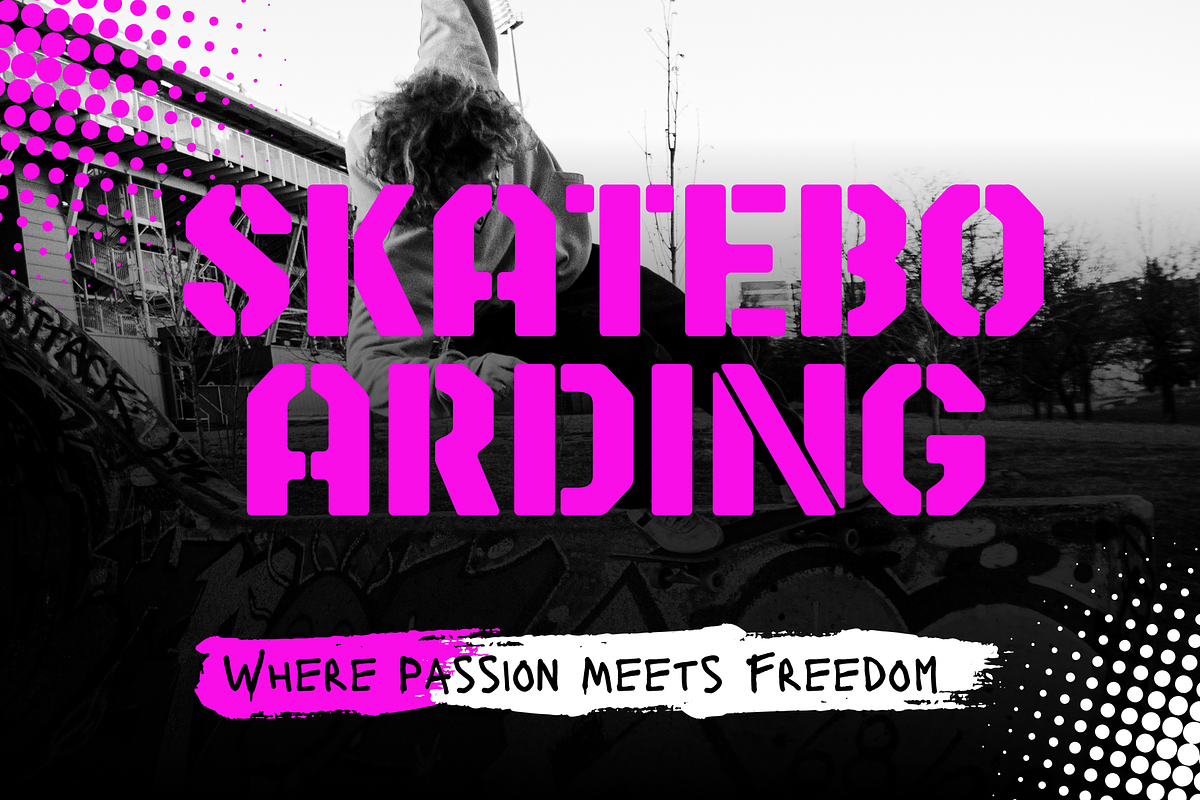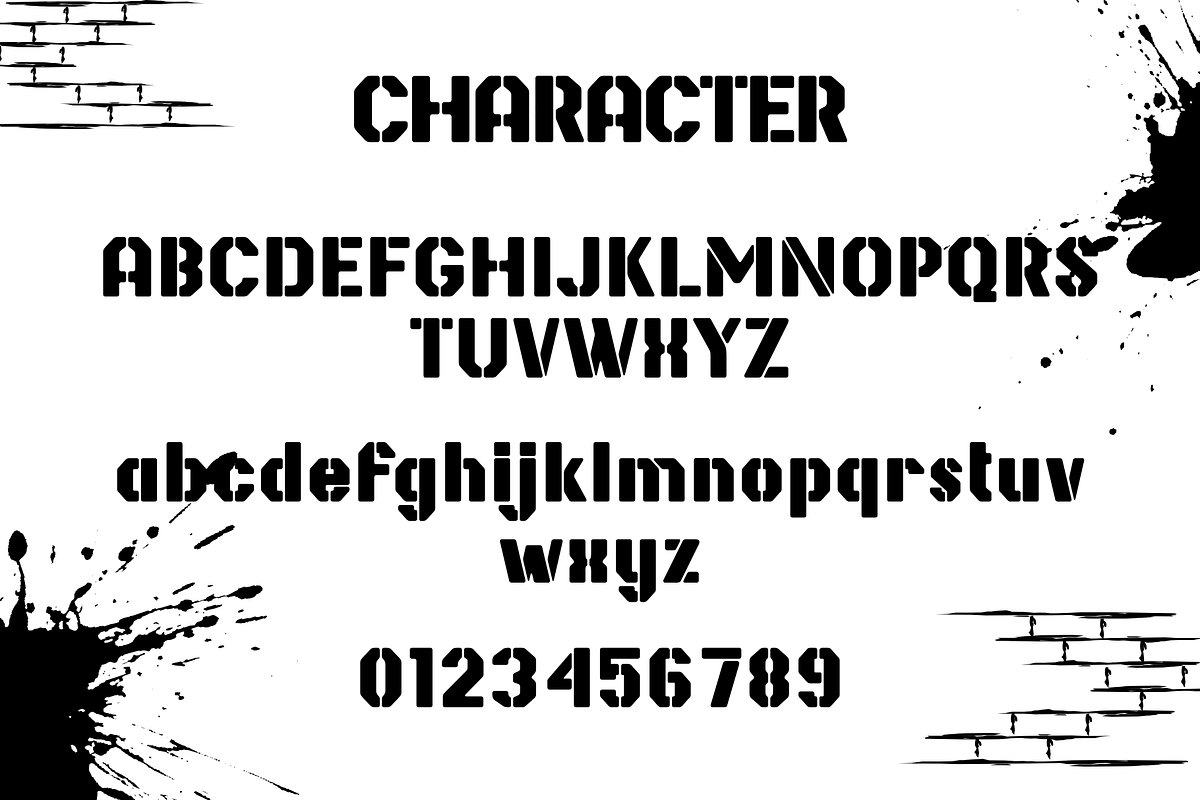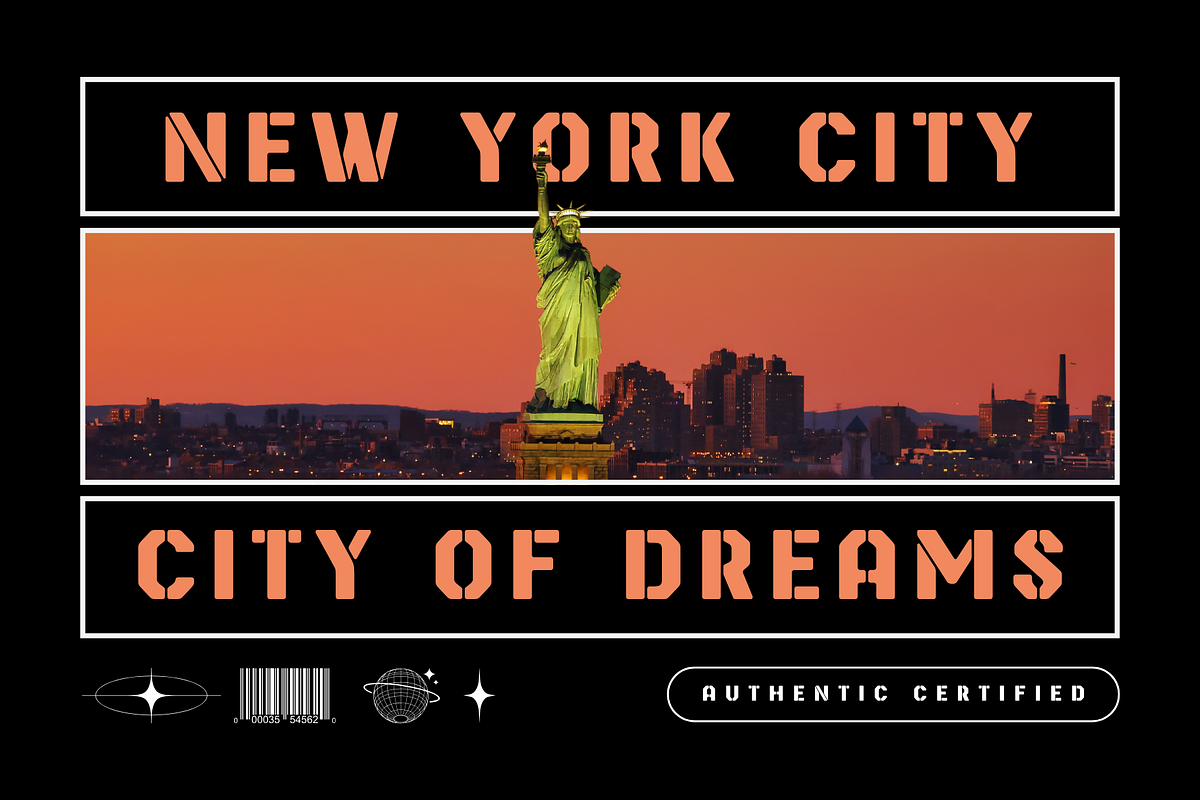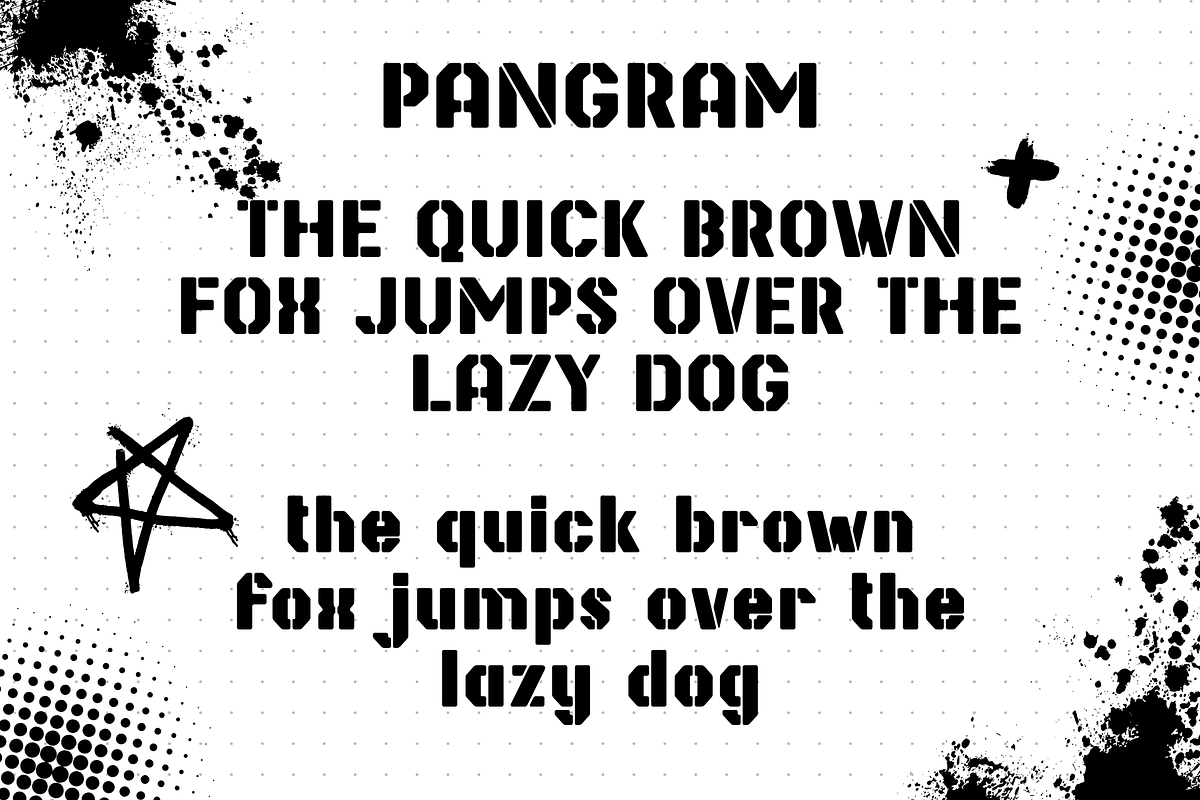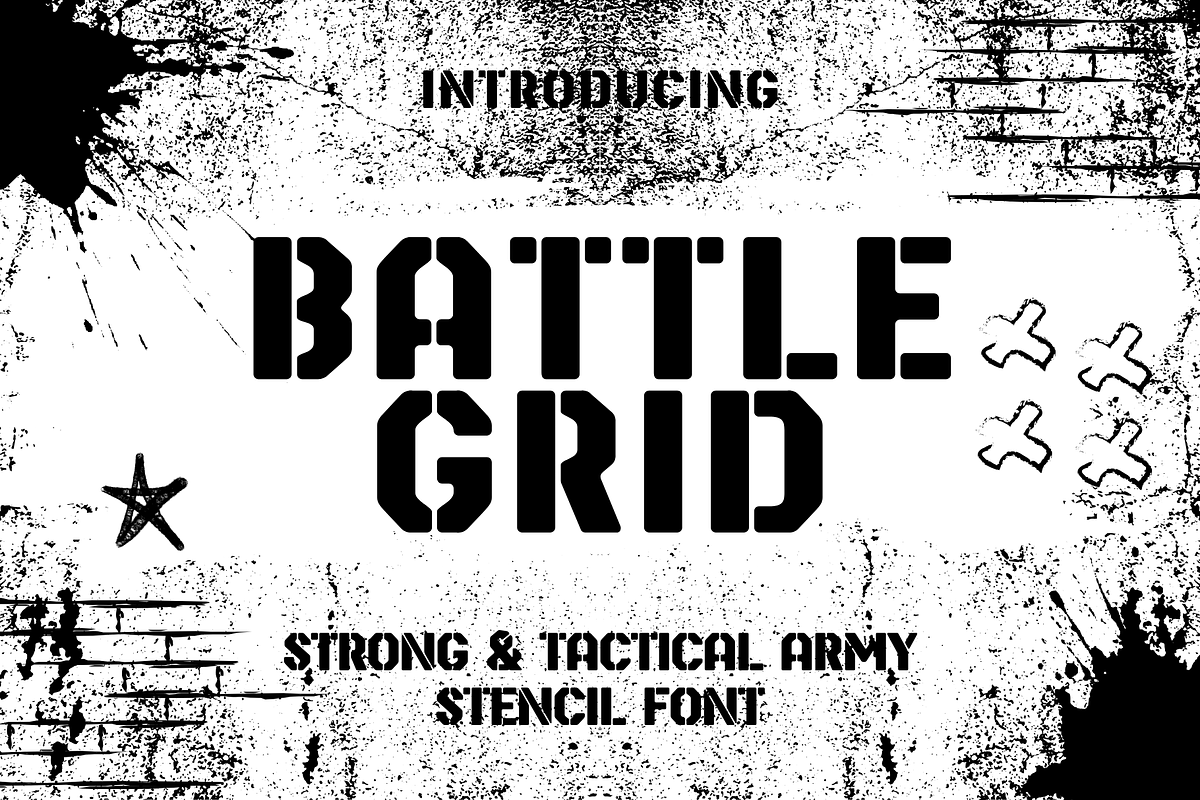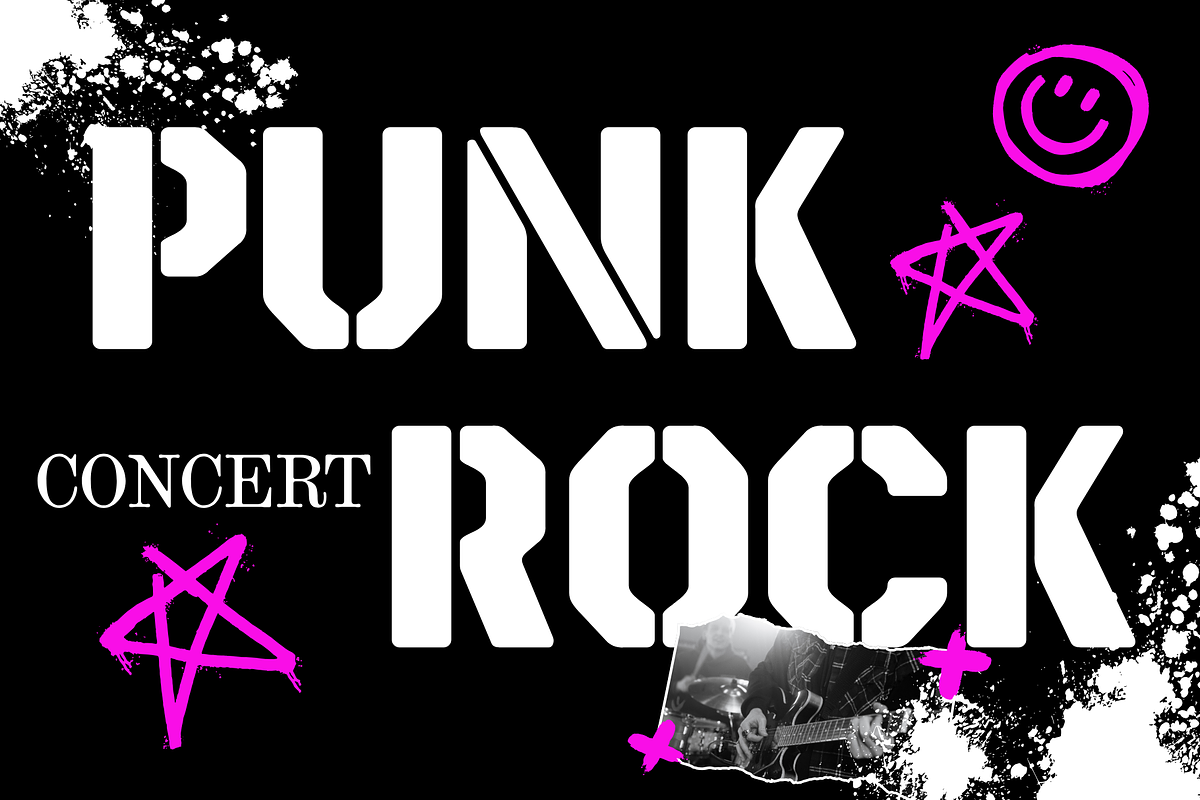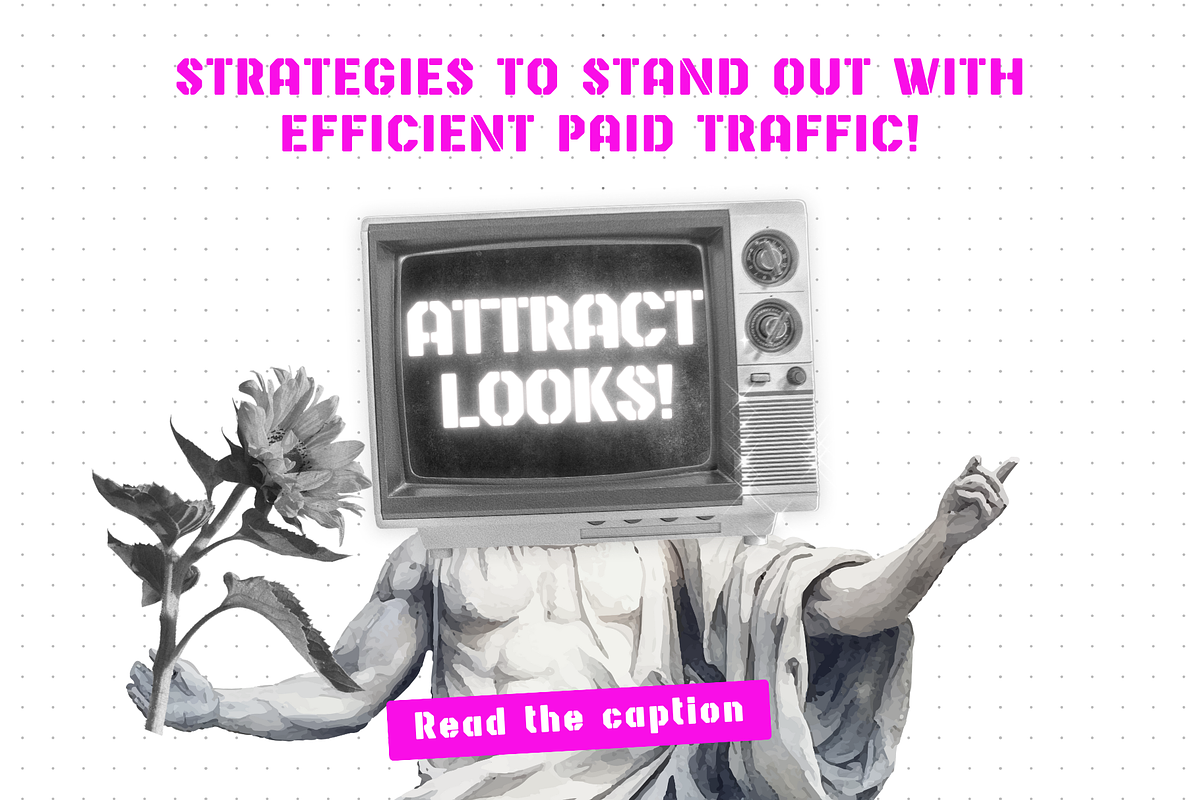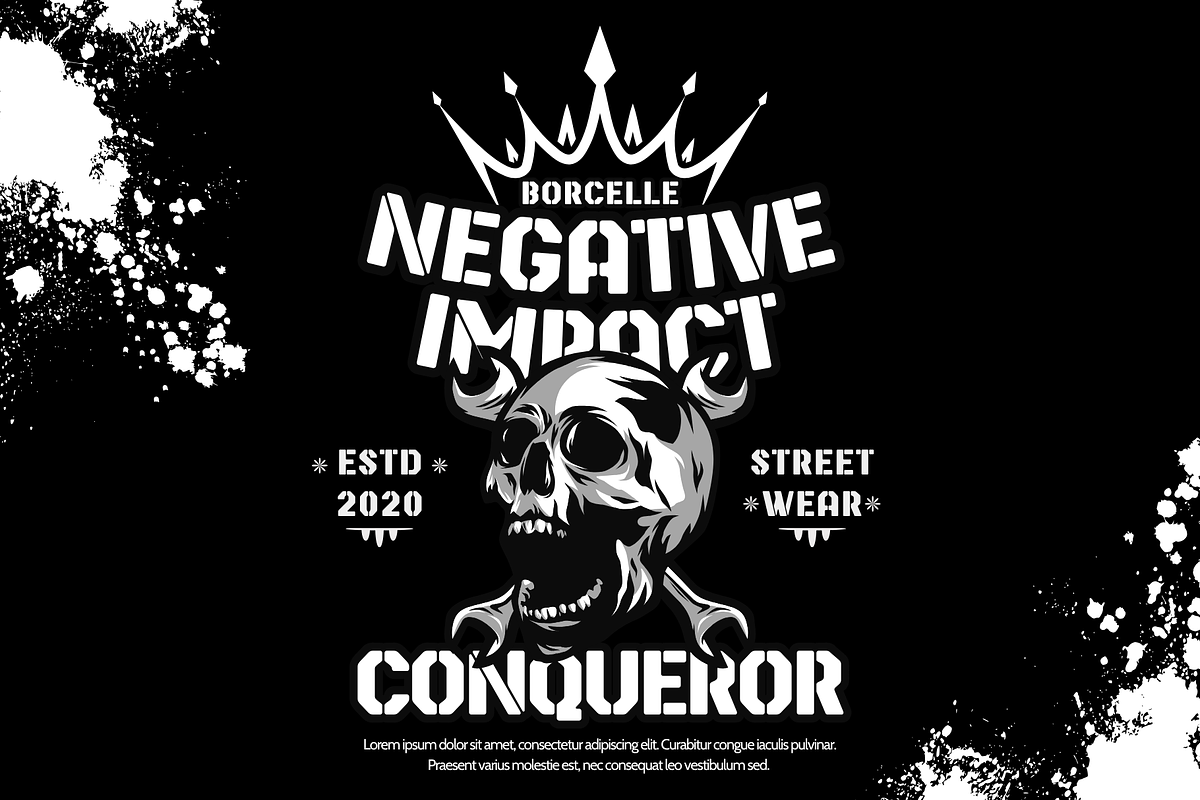
Battle Grid - Tactical Army Stencil
Battle Grid is a modern stencil font with strong military, tactical, and industrial vibes. Designed with bold cuts and precise grid shapes, this font delivers a masculine, powerful, and impactful look that stands out in any design.
It blends classic army style with futuristic elements, making it perfect for projects that need to look strong but still modern and readable.
- Sports & eSports design
- Jerseys & team logos
- Posters & event titles
- Army / Tactical themes
- Apparel & merchandise
- Bold branding & packaging
- Headlines & UI titles
Battle Grid – When Bold Meets Tactical Precision. Make your design stronger, louder, and more intense!